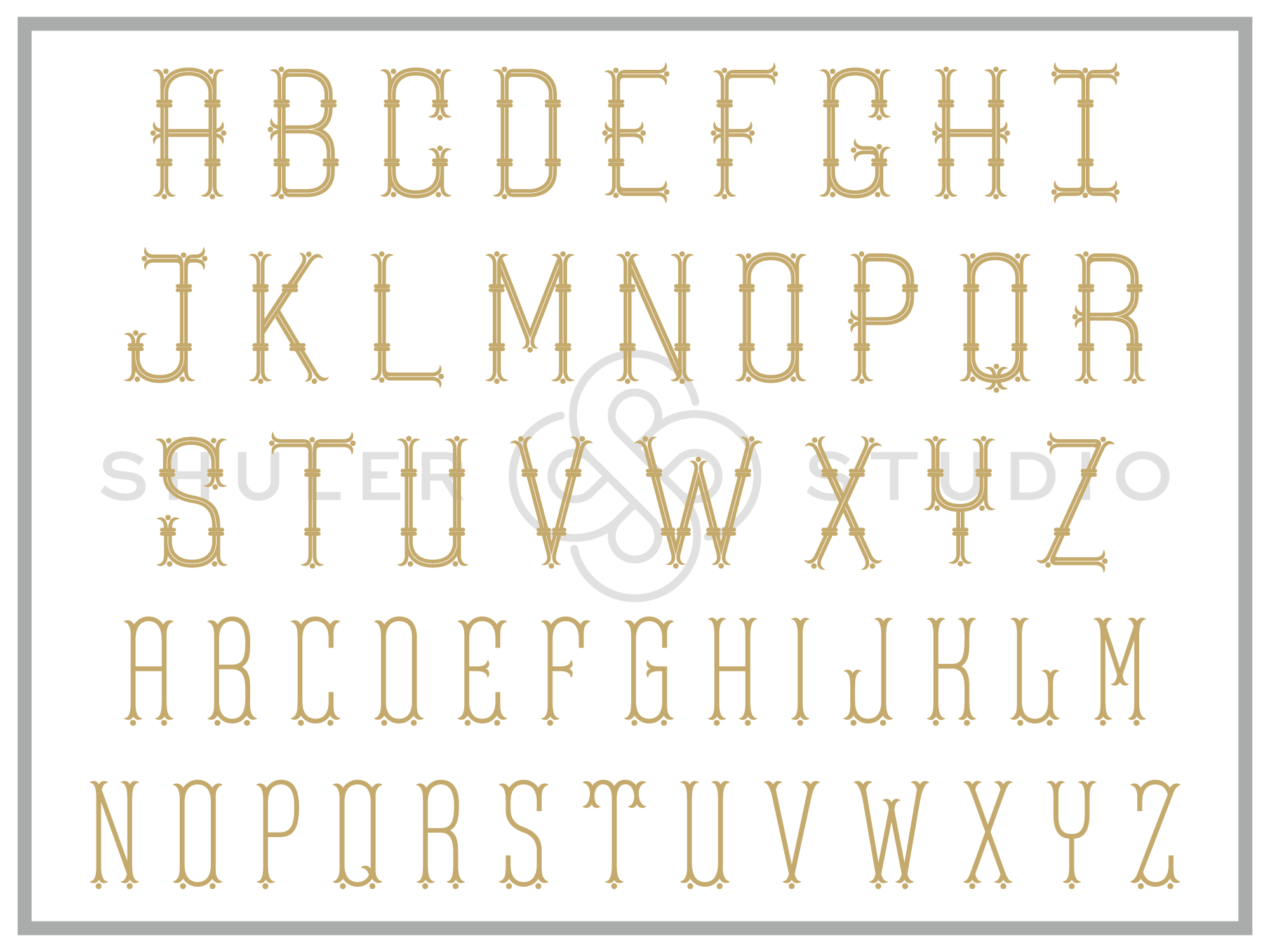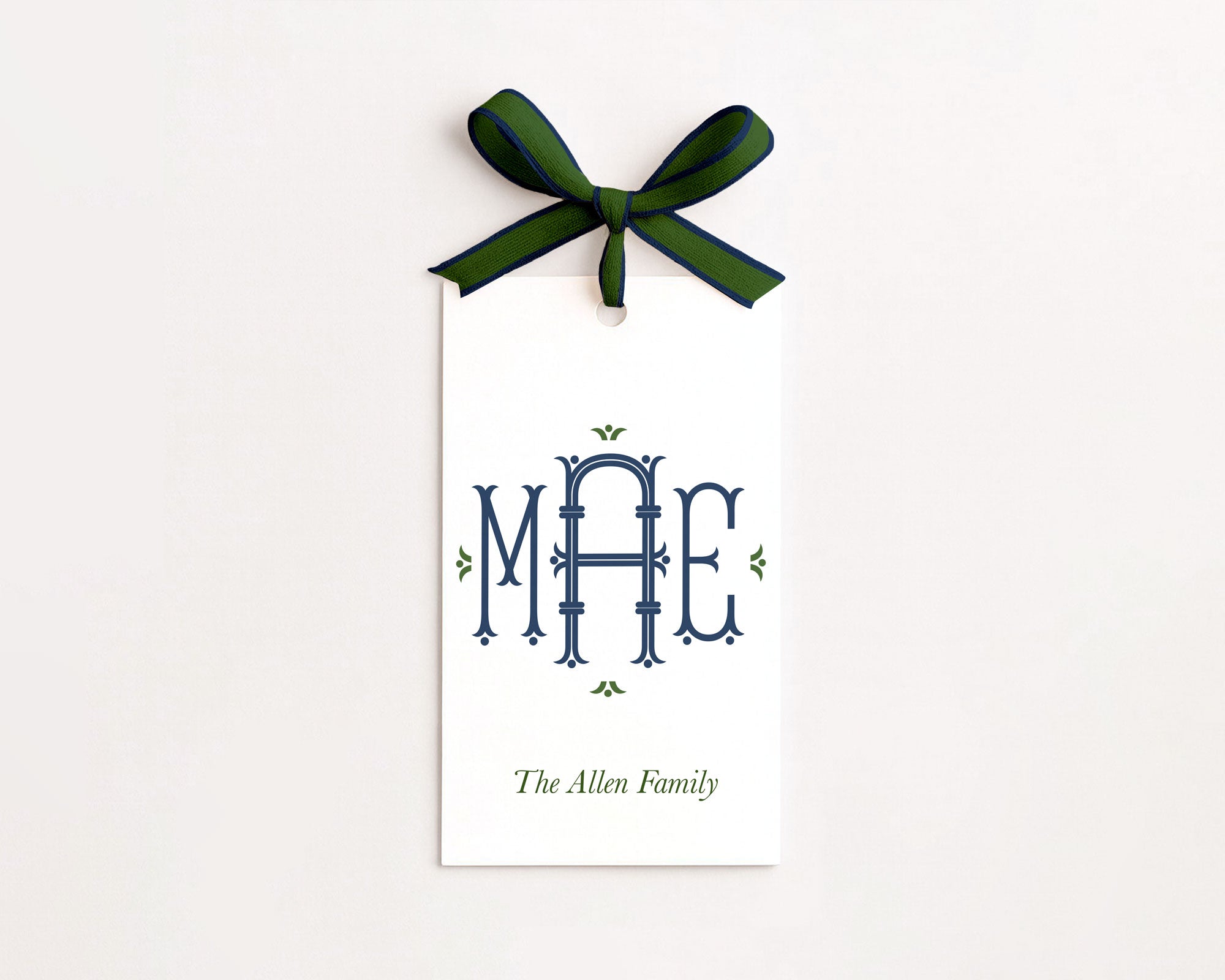
Monogram Flair is a gorgeous collection of 26 center letters and 26 coordinating right and left letters. The outer letters boast a unique fishtail with dot design, while the center letters have ornate flairs accented with dots.
The result is a beautiful font that can be used as a 1, 2, or 3-letter monogram, or as a name.
Monogram Flair includes 26 center letters as the master size, 26 coordinating right/left letters, and 5 coordinating frames.